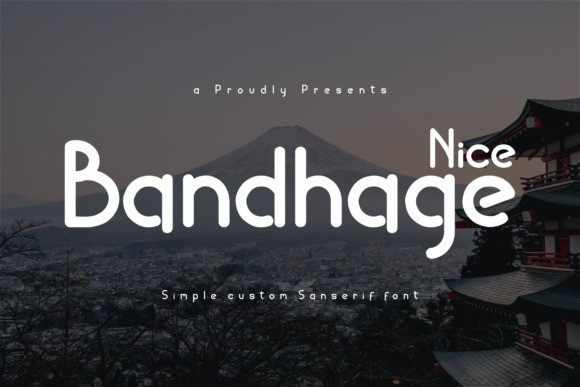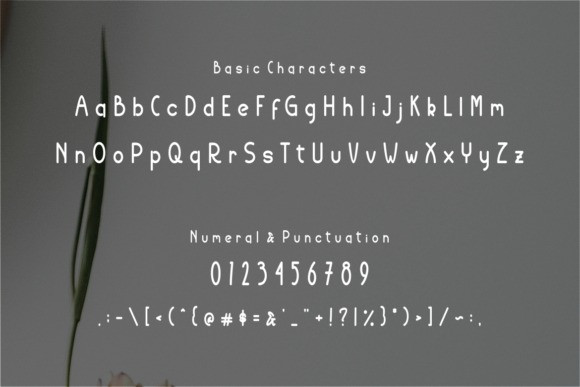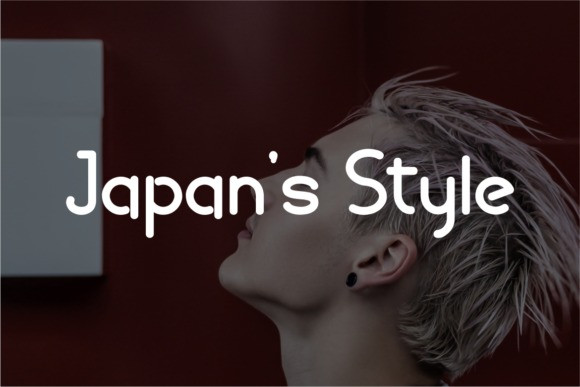
Nice Bandhage Font
Nice Bandhage Font It has a elegant, classy look and modern.
It’s a great font for fashion, apparel projects, signature, album cover,
logo, branding, magazine, social media, & advertisements, but also works great for other projects.